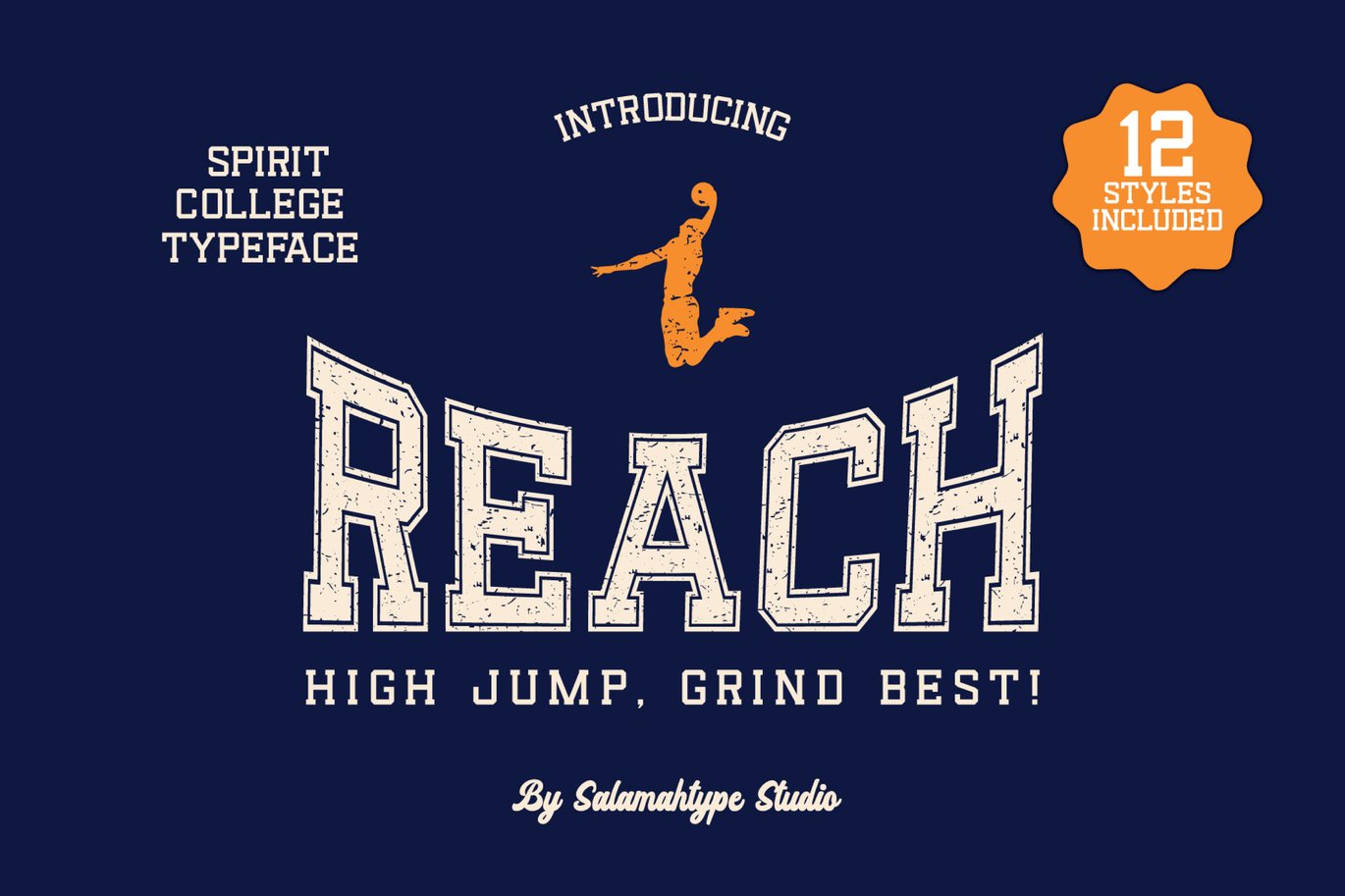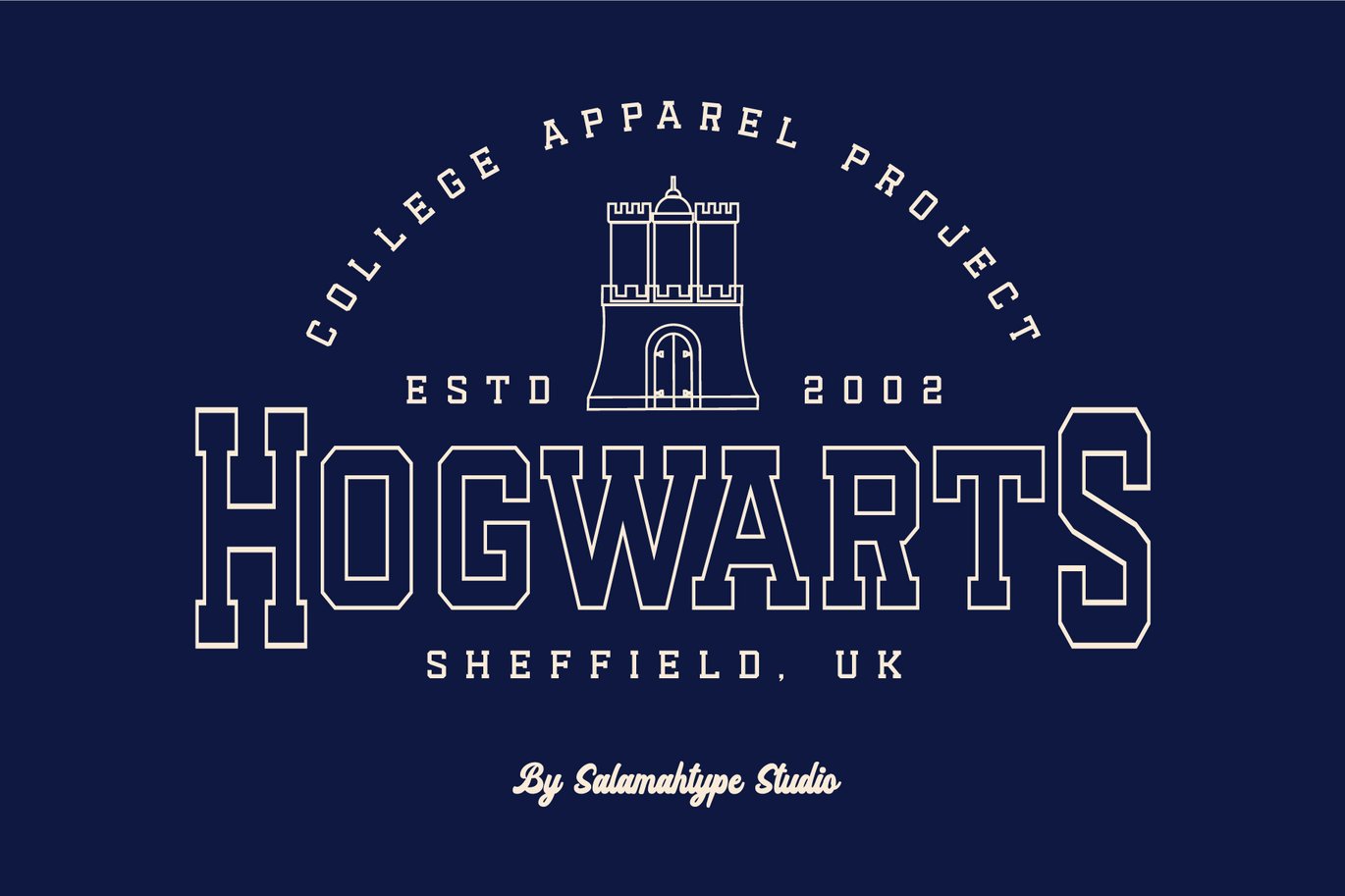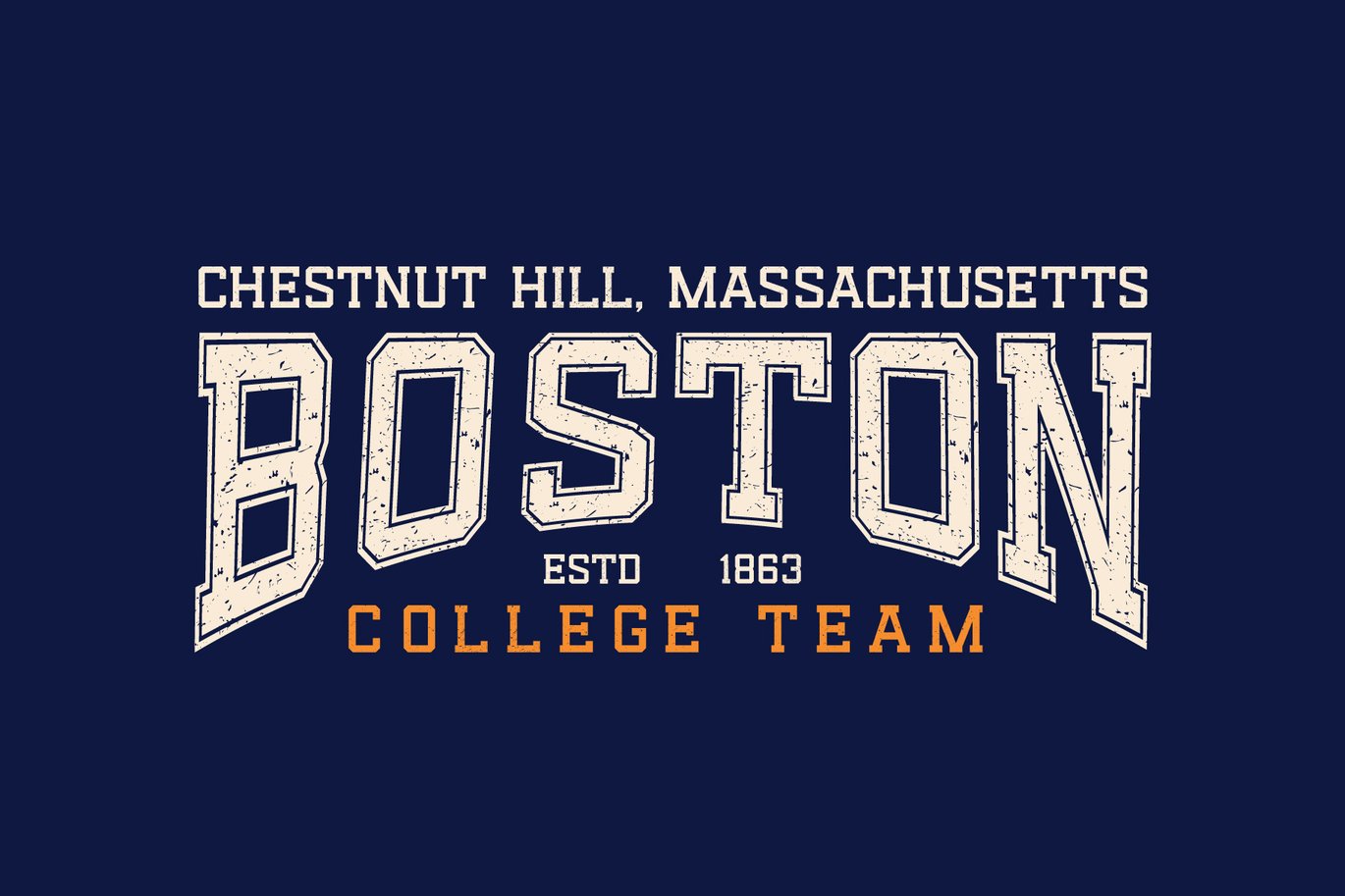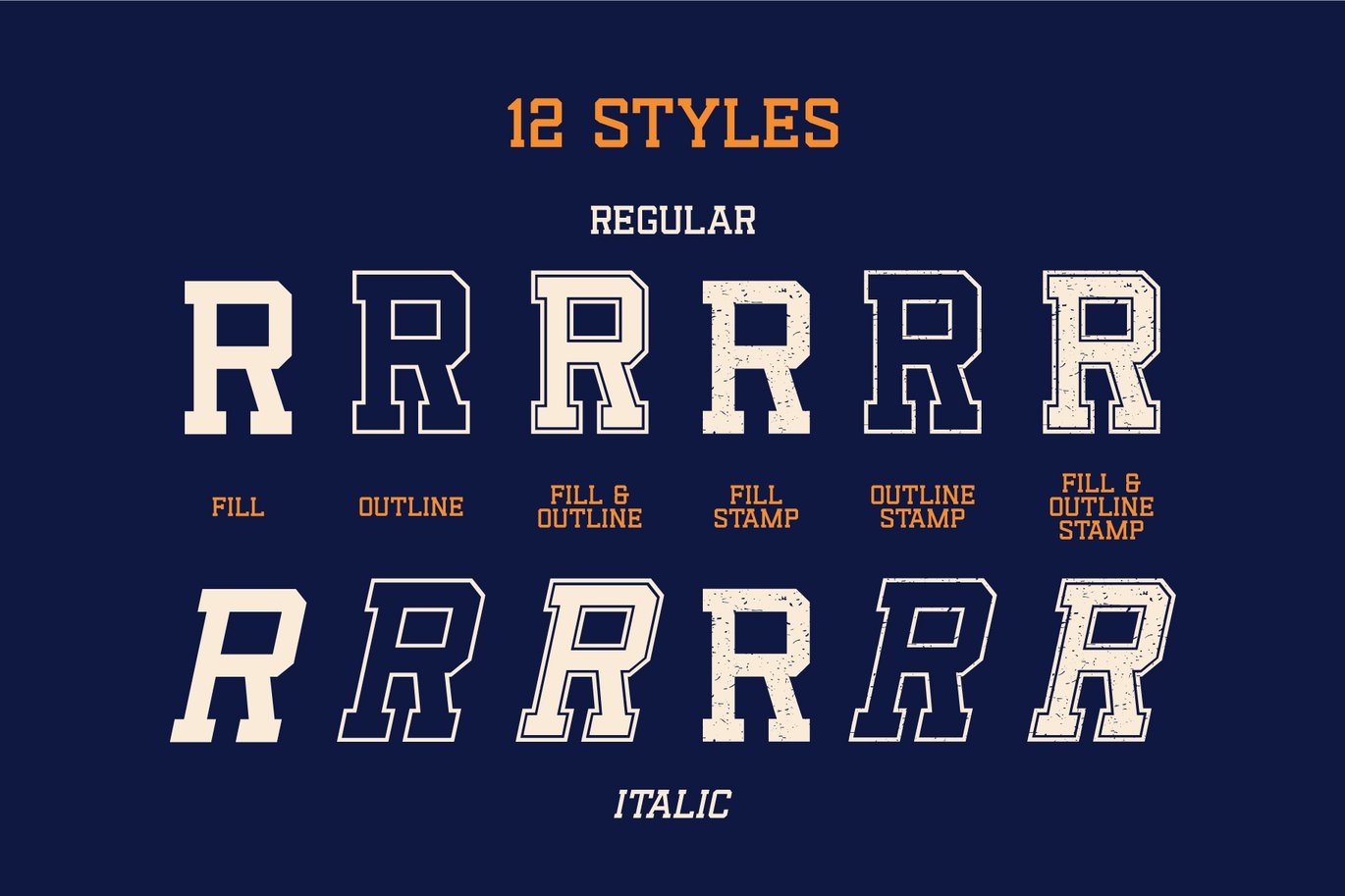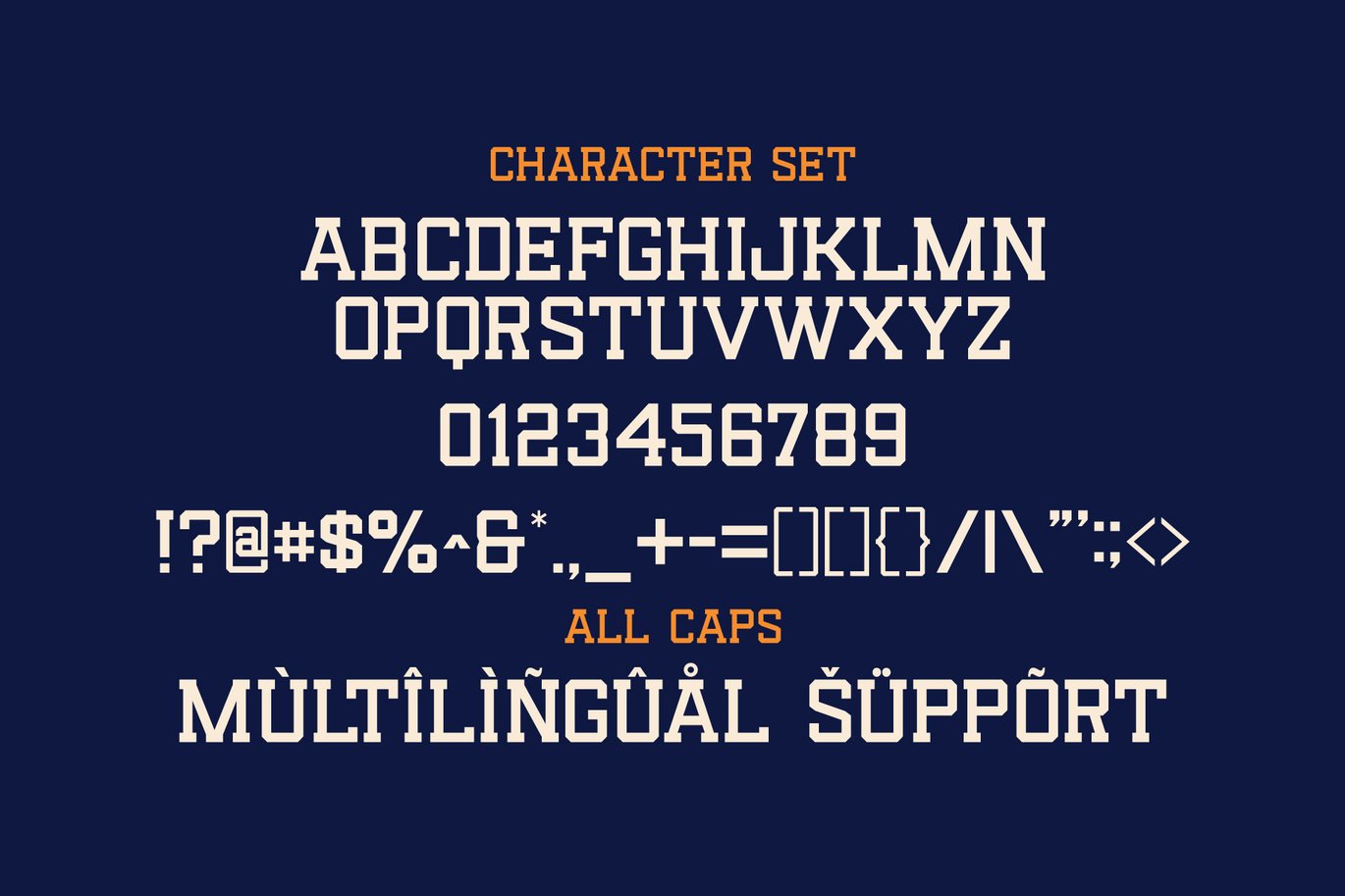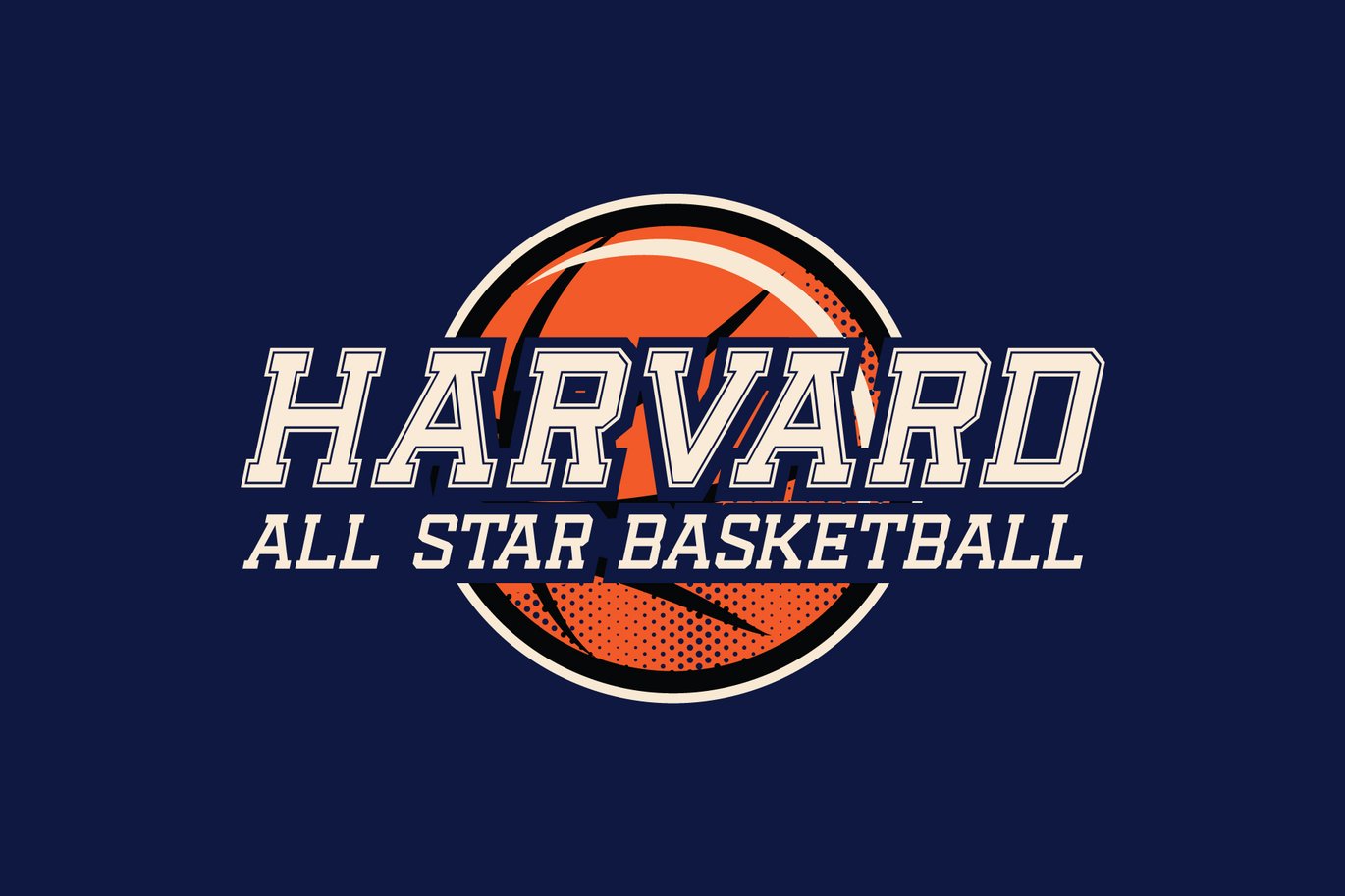
Reach – Sports Font
Hello, Introducing our font called “REACH” – display typeface with 12 styles included (Fill-Fill Outline-Stamp-Outline). Perfect for branding projects, logos, labels, logotypes and more. If you have a sports themed project you should give this font a try.
- A-Z all caps characters (12 styles)
- Numbers, symbols, and punctuation